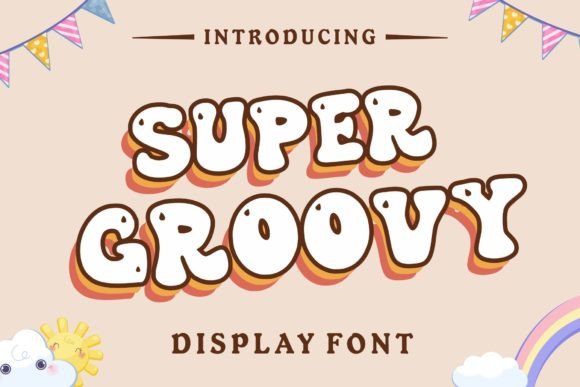
Step into a world of boundless creativity and design possibilities with Super Groovy Font, a display font family that sets the standard for exceptional horizontal print. Crafted with meticulous care by the esteemed Riki.studio, Super Groovy is not just a font; it's an artistic expression that will transform your creative visions into extraordinary realities.
Unleash the Sweetness: Capture the essence of charm and playfulness with Super Groovy's delightfully sweet and cute character. Designed to evoke a sense of joy and lightheartedness, this font will add an irresistible touch to your designs, leaving a lasting impression on your audience.
A Touch of Distinction: In a world of ordinary fonts, Super Groovy stands out with its unique and distinctive style. Its carefully crafted characters exude personality and individuality, ensuring that your designs will never blend into the background. Embrace the power of uniqueness and make a statement with Super Groovy.
Make Your Creations Shine: With Super Groovy at your disposal, you'll have the power to create designs that sparkle and shine. Whether you're crafting eye-catching t-shirts, stylish tote bags, trendy hats, or vibrant stickers, Super Groovy will elevate your creations to new heights of brilliance. Its versatile nature makes it the perfect choice for a wide range of projects, allowing you to explore your creativity without limits.
The Perfect Wedding Companion: As you embark on the journey of love and commitment, let Super Groovy be your trusted companion in creating the most memorable wedding invitations. Its elegant and sophisticated style will add a touch of timeless beauty to your special day, ensuring that your invitations leave a lasting impression on your guests.
A Font for All Occasions: Super Groovy is more than just a font; it's a versatile tool that adapts seamlessly to any creative endeavor. Design stunning logos that command attention, create heartfelt cards that convey your emotions, or craft inspiring quotes that resonate with your audience. With Super Groovy, the possibilities are endless.
Unleash Your Imagination: Embrace the boundless nature of creativity with Super Groovy. Let your imagination run wild as you explore new design horizons, crafting masterpieces that captivate and inspire. From whimsical illustrations to bold typography, Super Groovy will become your trusted ally in transforming your creative dreams into tangible realities.